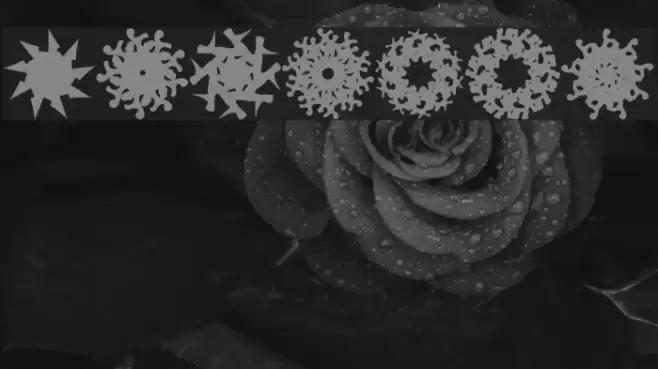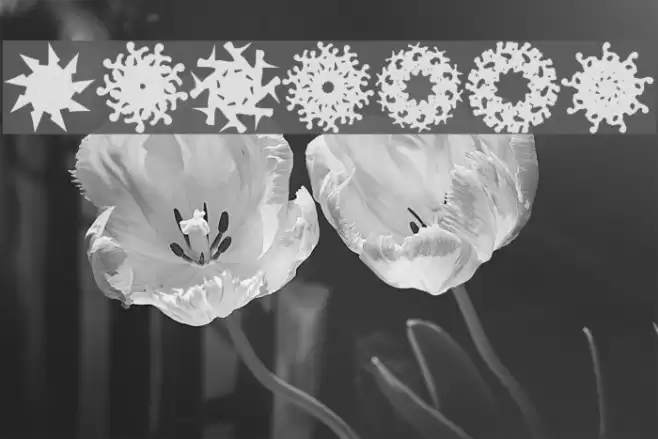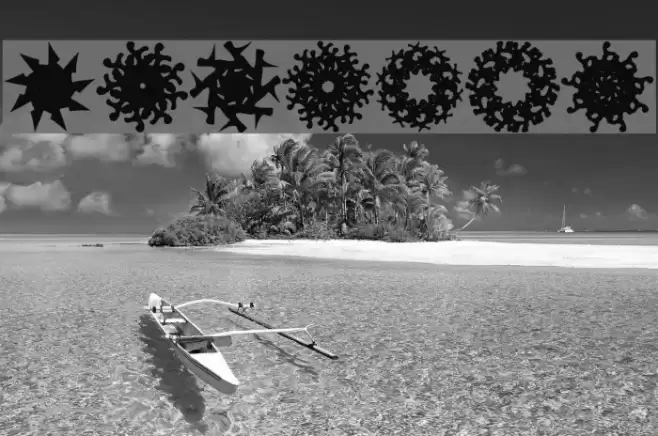
LaMorte3 Font
LaMorte3 Description
This is not a traditional font but rather a collection of intricate, abstract shapes resembling snowflakes or starbursts. Each character is uniquely designed with complex patterns and symmetrical forms, making them more suitable for decorative purposes rather than textual communication. The designs are bold and striking, with a high level of detail that draws the eye. These shapes could be used as ornamental elements in graphic design projects, adding a touch of complexity and visual interest.
A collection of intricate, abstract shapes resembling snowflakes or starbursts from Uncategorized fonts.
- Proposed Projects: Ideal for decorative elements in graphic design, such as borders, dividers, or background patterns.
- Use Case: Decorative elements, Graphic design